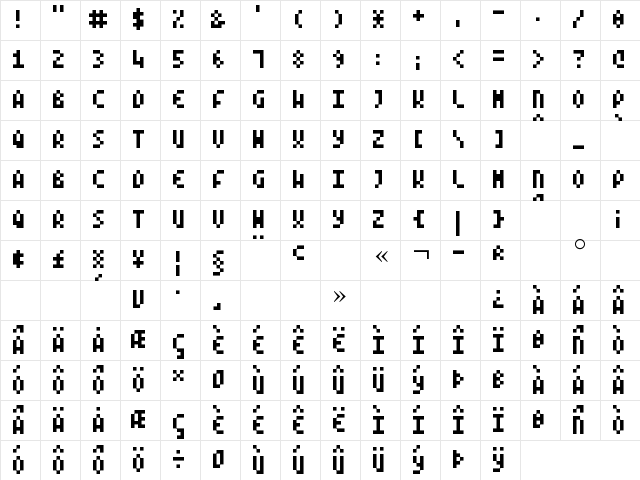
Mode X Regular
Designer: Neale Davidson
Design Context for Mode X
Mode X is a composed and adaptable typeface that performs quietly and consistently across a wide range of design contexts.